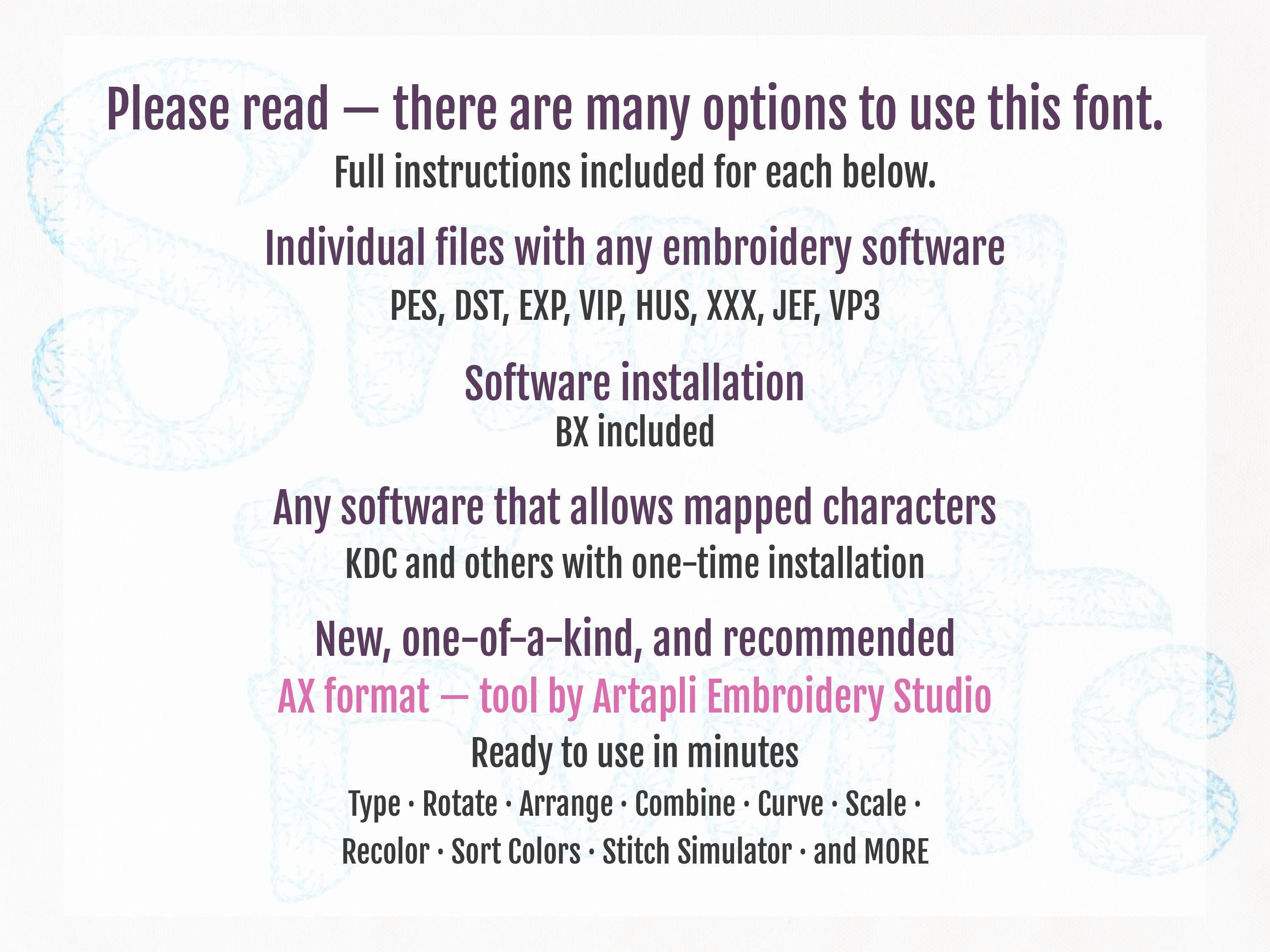
Winter holidays Snow Font light sketch outline machine embroidery designs Christmas Snowflake alphabet letters monogram mini sizes, BX included
This is a quick stitch design, looks like laces, the background fabric looks through. Stunning effect.
Included uppercase and lowercase, numbers and special marks & . , - / ? !